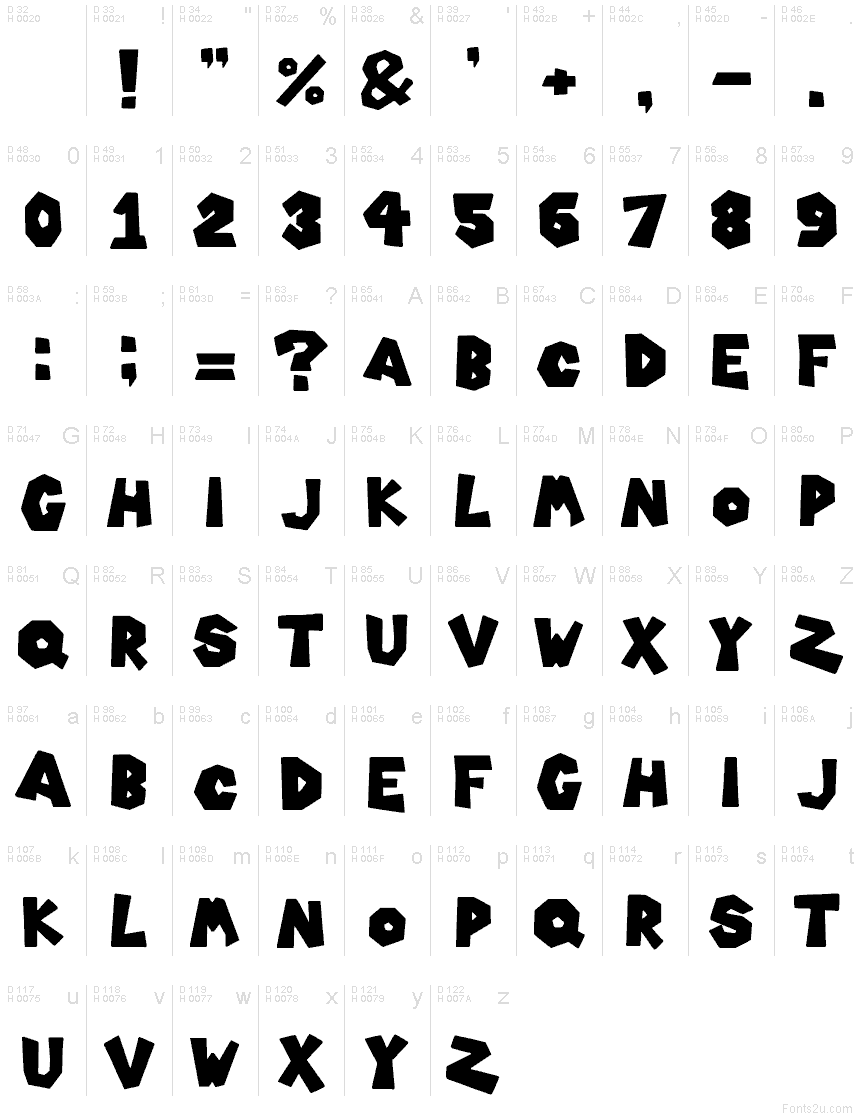
Mayro Kart Retro Regular
Mayro Kart Retro font by Numerosity is a free cartoon display typeface that bottles up the chunky, tilted energy of classic kart racing menus. The letters feel cut from thick, inky paper—bold, slightly wobbly, and packed tight—so every word looks like it’s racing toward you. It’s loud, playful, and instantly nostalgic, with a bouncy rhythm that grabs attention in a split second.
Using Mayro Kart Retro, your titles practically announce themselves, making this free font a natural fit for game logos, fan projects, Twitch or YouTube thumbnails, kids’ party invites, event posters, and stickers or merch. Set it big and bold, then pair it with a clean, rounded sans serif in smaller sizes to keep the wild, retro headline energy readable and grounded.